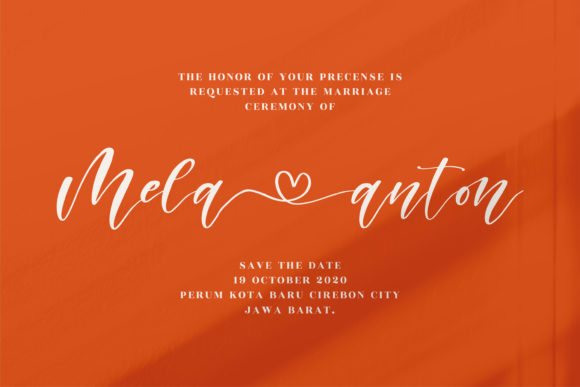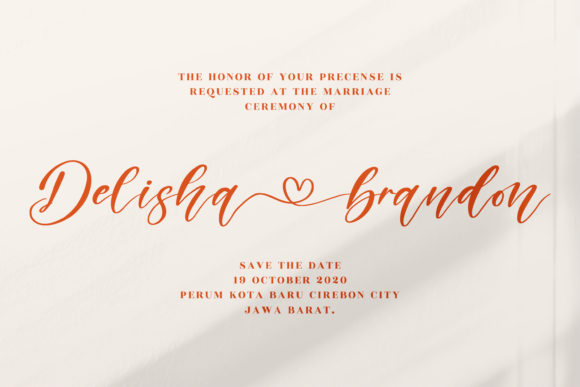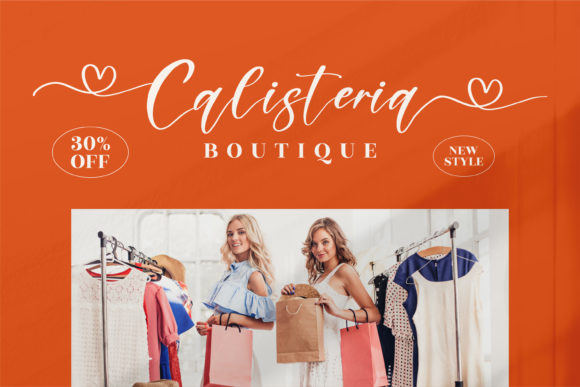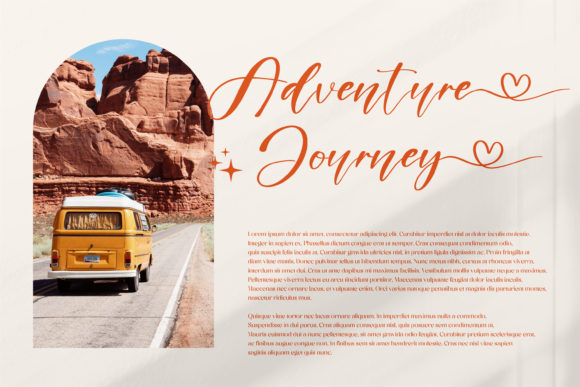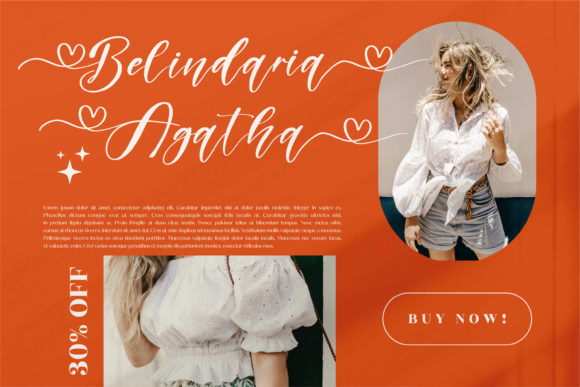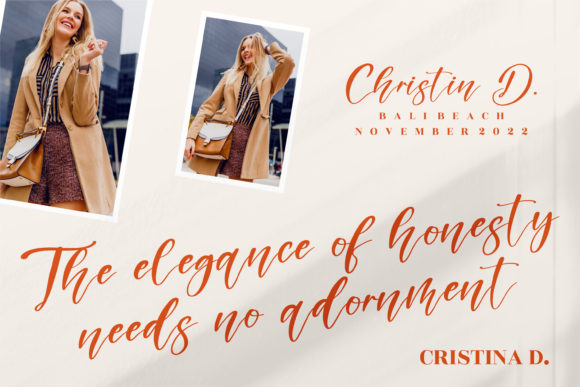
Introduction to Maghdela Font
Have you ever stumbled upon the perfect font while working on a creative project, only to find that it elevates your design to a whole new level? That’s exactly what happened when I discovered the enchanting Maghdela Font. Its romantic and sweet calligraphy style has a way of making any design feel luxurious and sophisticated.
As a designer, I know how valuable it is to have access to high-quality design resources like the Maghdela Font. Not only does it add a touch of elegance to any project, but it’s also incredibly versatile, making it perfect for a wide range of creative endeavors. And the best part? The Maghdela Font is PUA encoded, allowing you to easily access all of its amazing glyphs and ligatures, even with a free download.
Whether you’re working on a project with a transparent background or need a font that will really make your design stand out, the Maghdela Font is an excellent choice. In this article, we’ll take a closer look at what makes this font so special and explore its many uses in design.
Key Features of Maghdela Font
- It offers a transparent background, making it perfect for use on various backgrounds and designs.
- Maghdela Font features a unique and elegant design, making it suitable for a wide range of creative applications.
- The font includes a range of characters, including uppercase and lowercase letters, numbers, and punctuation marks.
- Maghdela Font is designed to be scalable, with a high resolution of 300 DPI, ensuring crisp and clear text even at large sizes.
Honest Review: Maghdela Font
I recently stumbled upon the Maghdela Font while searching for a unique design resource for a creative project. I was immediately drawn to its elegant and sophisticated look, perfect for creating a professional and high-quality design.
- Unique and elegant design style
- High-quality font with clear and readable characters
- Supports a transparent background, allowing for seamless integration with other design elements
One of the things that impressed me about the Maghdela Font is its versatility. It can be used for a wide range of creative projects, from business cards and brochures to website headers and footers.
- May not be suitable for projects that require a bold or playful font style
- Limited customization options available, may not be suitable for designers who require a high degree of control
Overall, I’m very impressed with the Maghdela Font and would highly recommend it to designers looking for a high-quality, elegant font for their next creative project.
The Maghdela Font is ideal for creative projects that require a high-quality, elegant font. It is commonly used in design resources such as logos, brochures, and social media graphics.